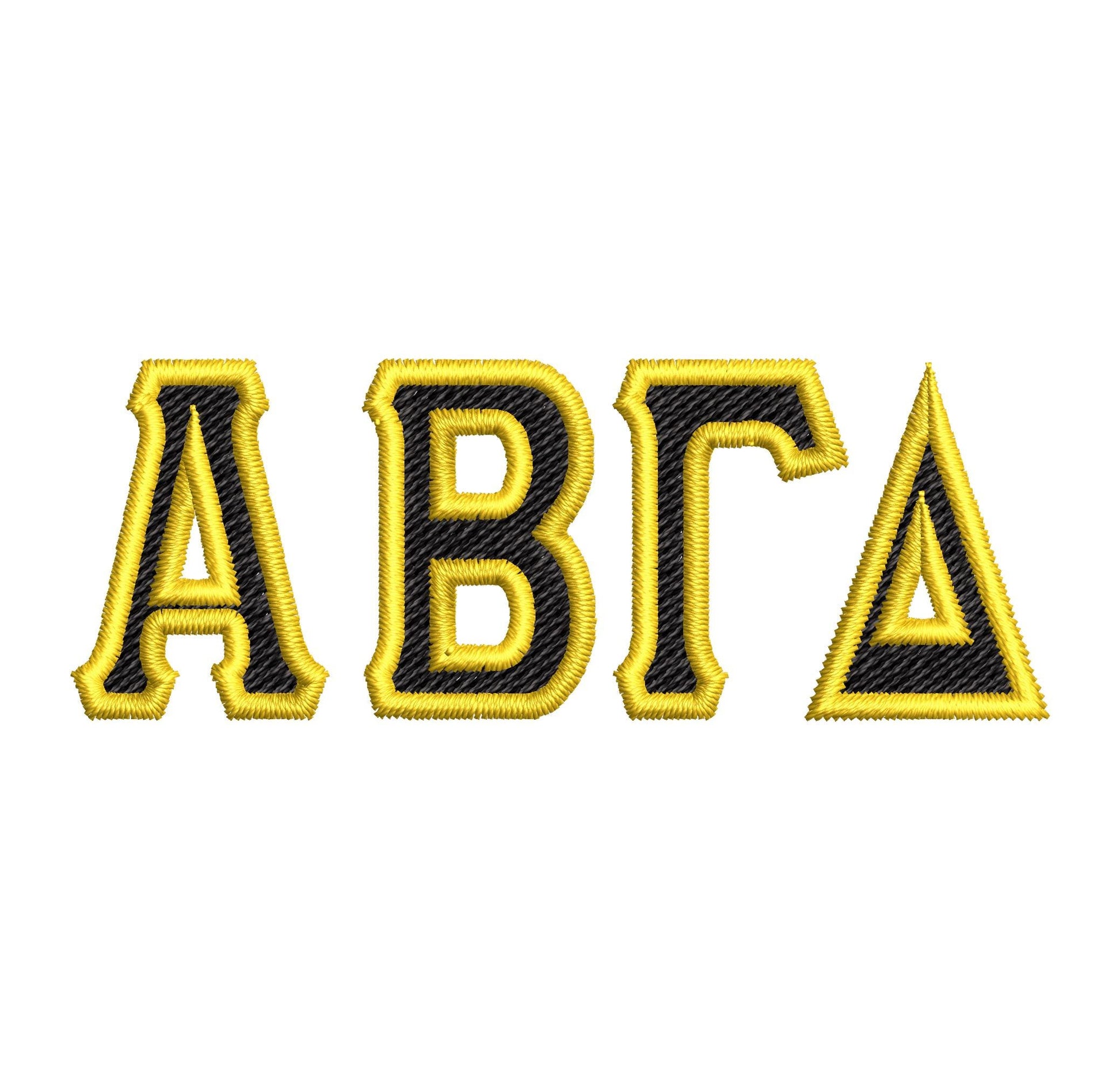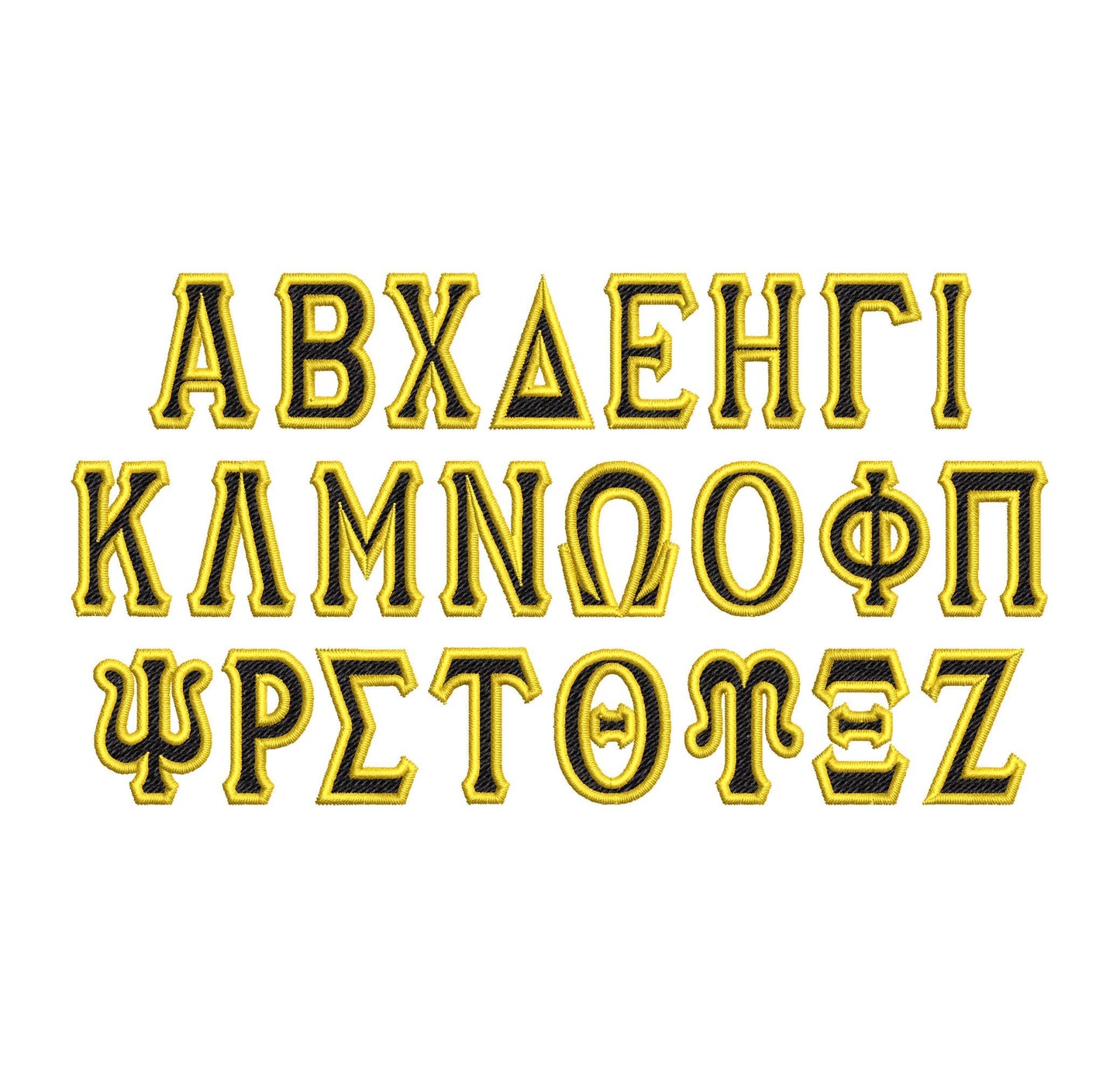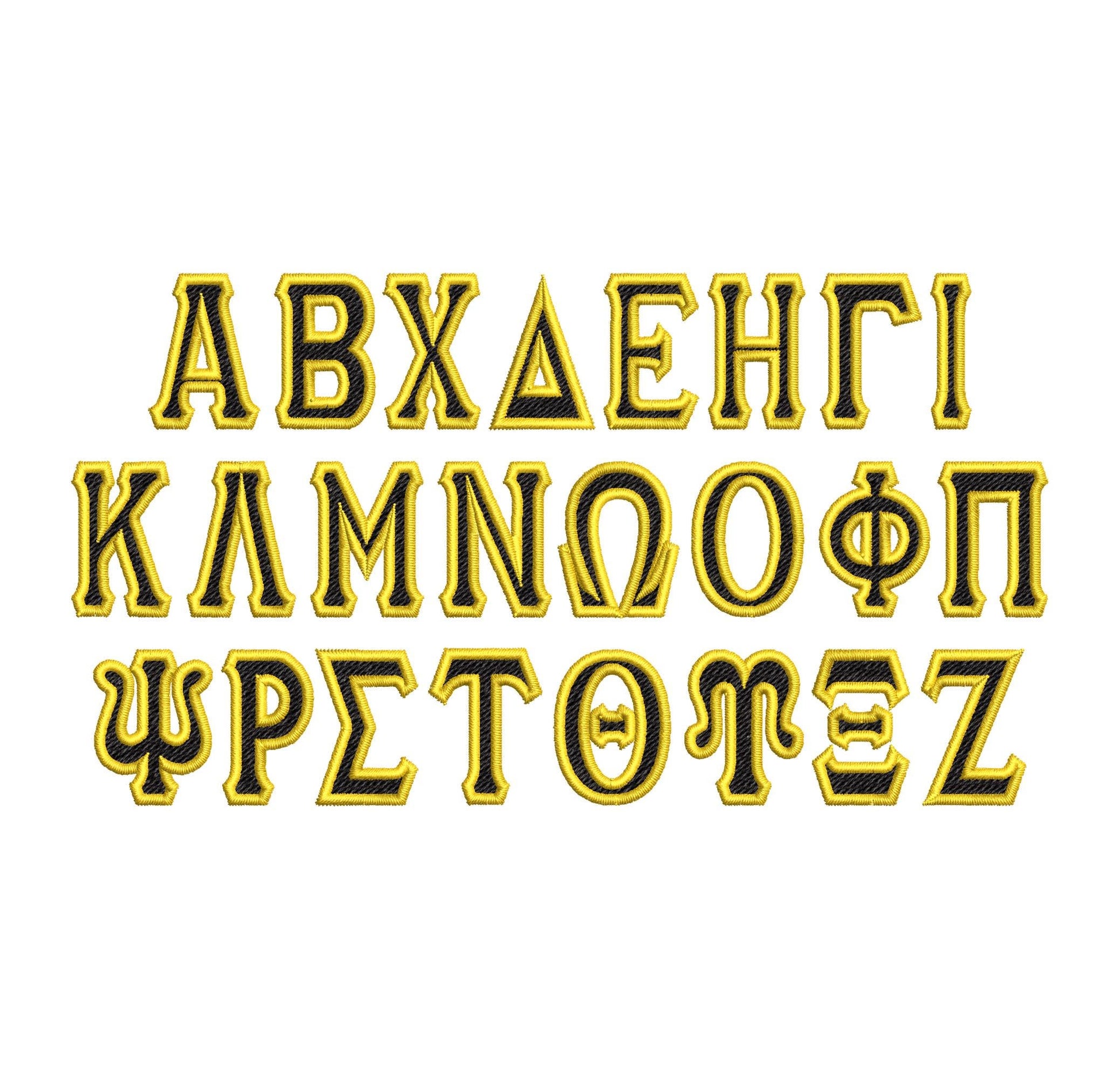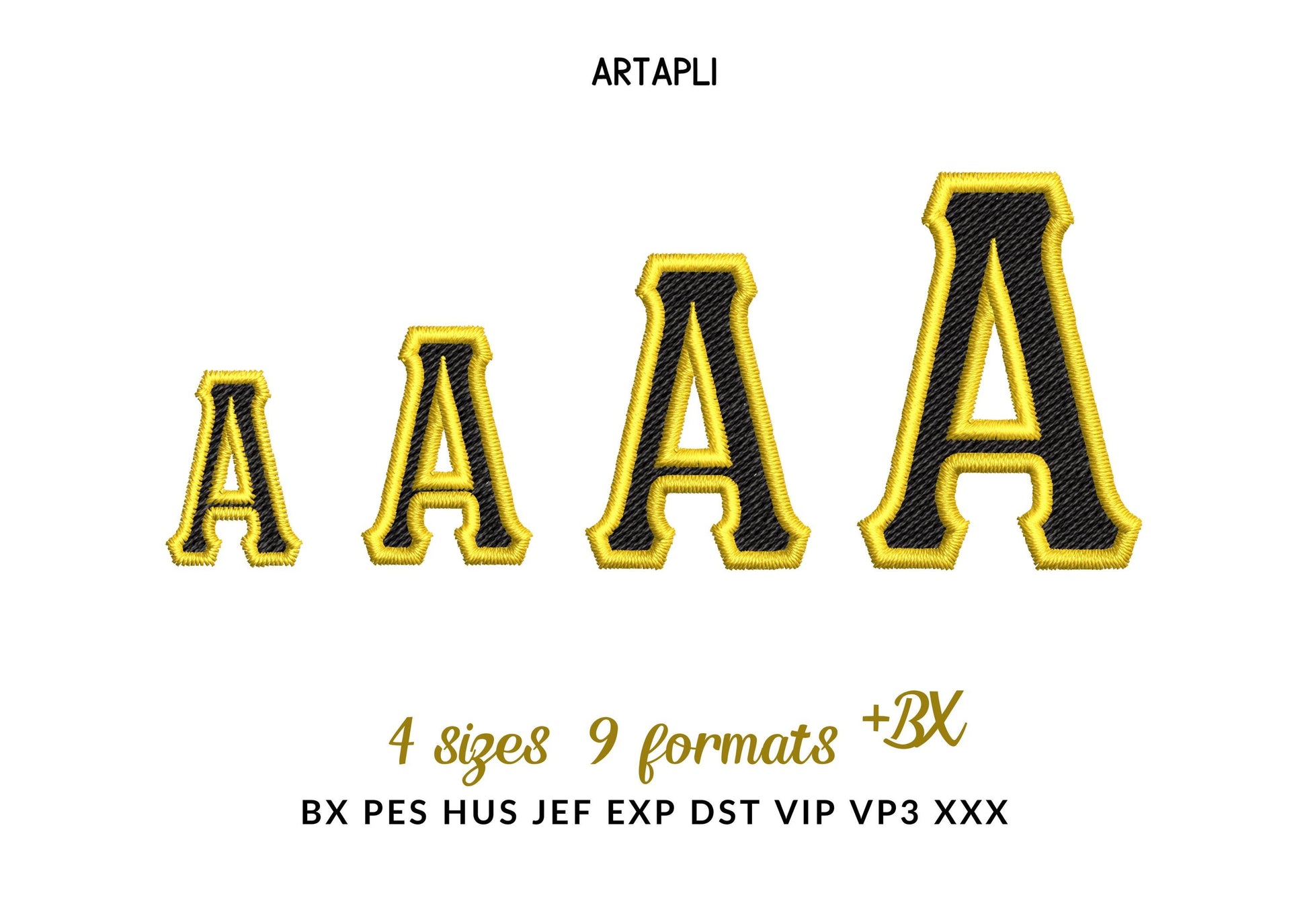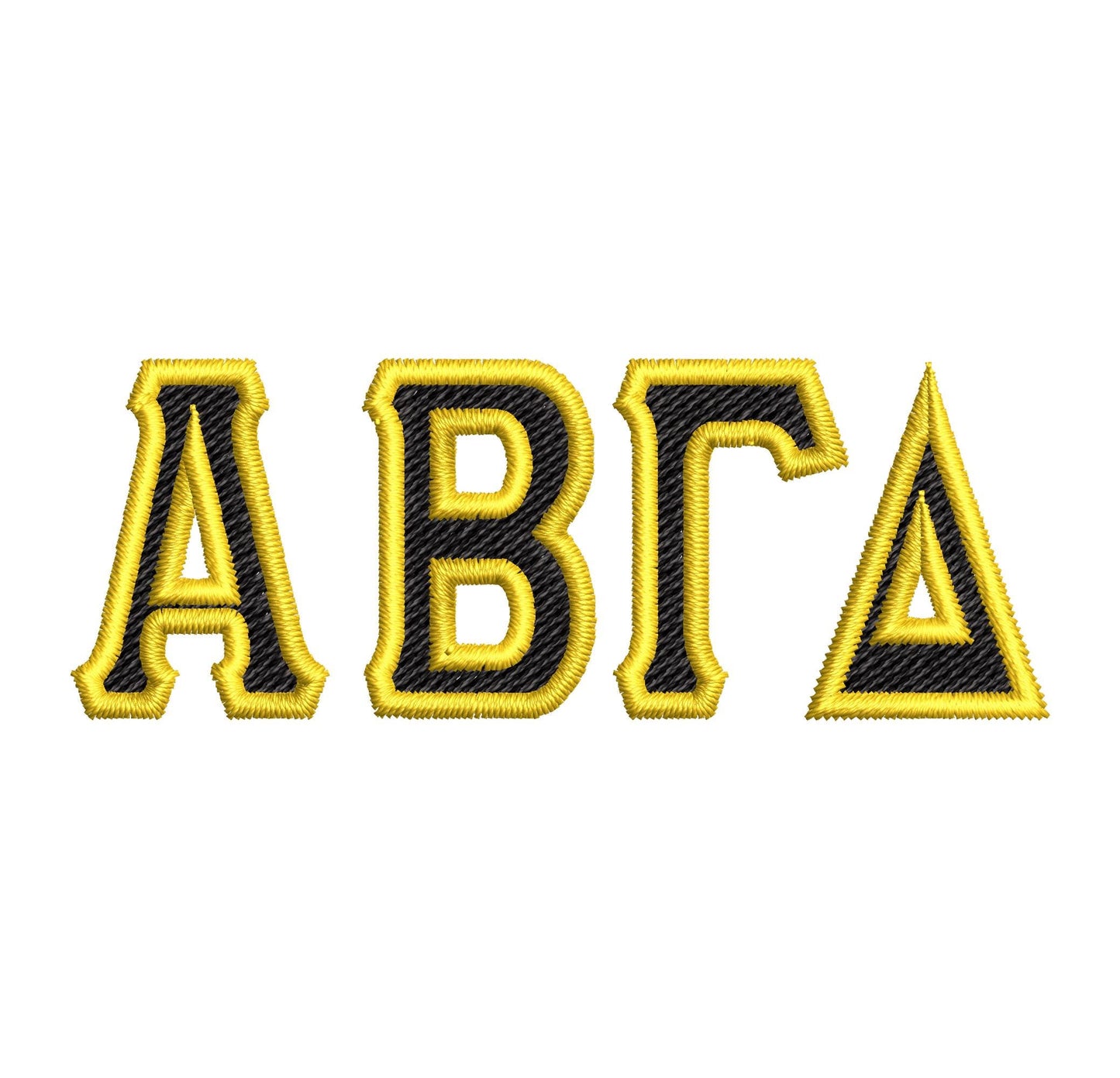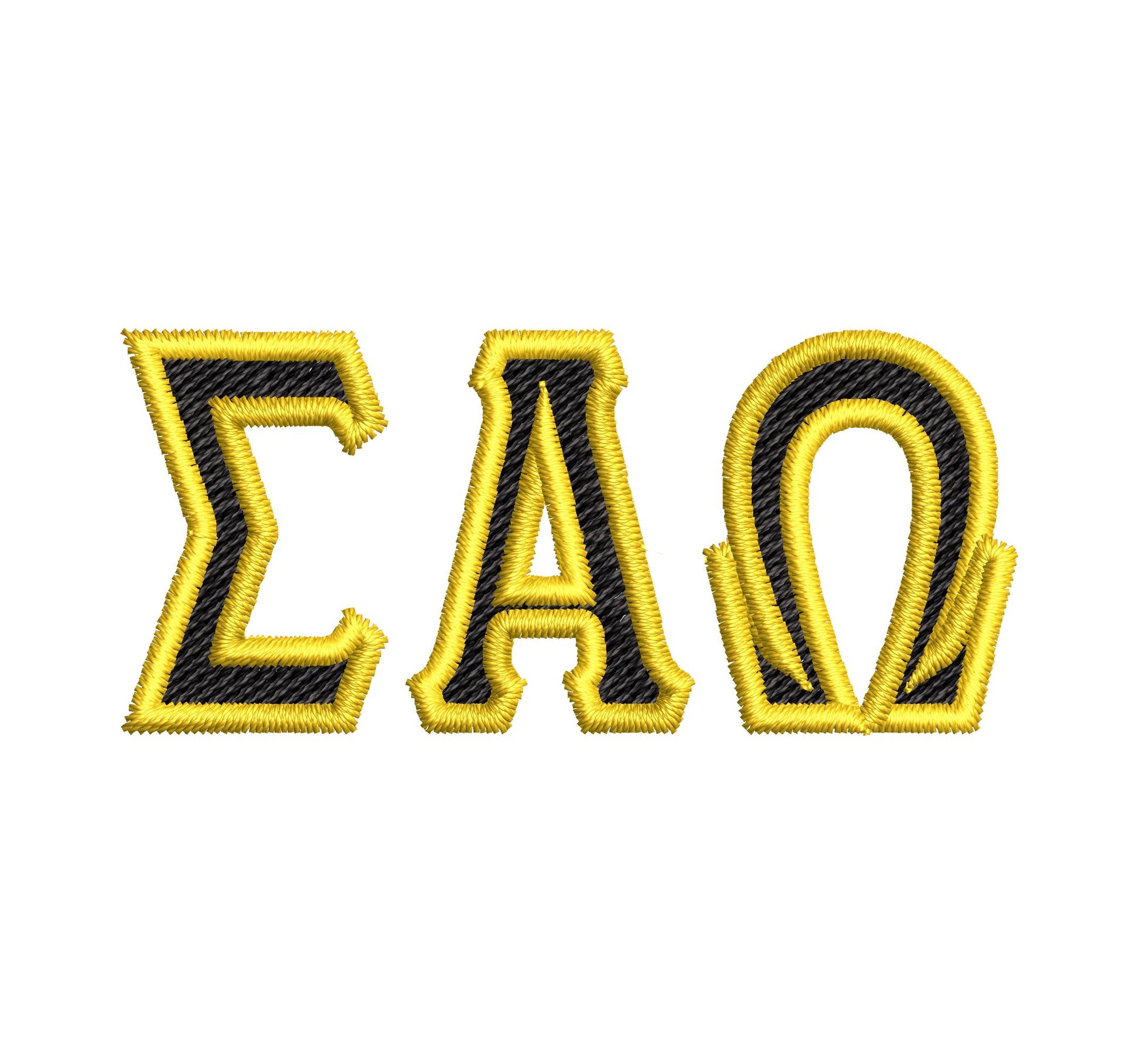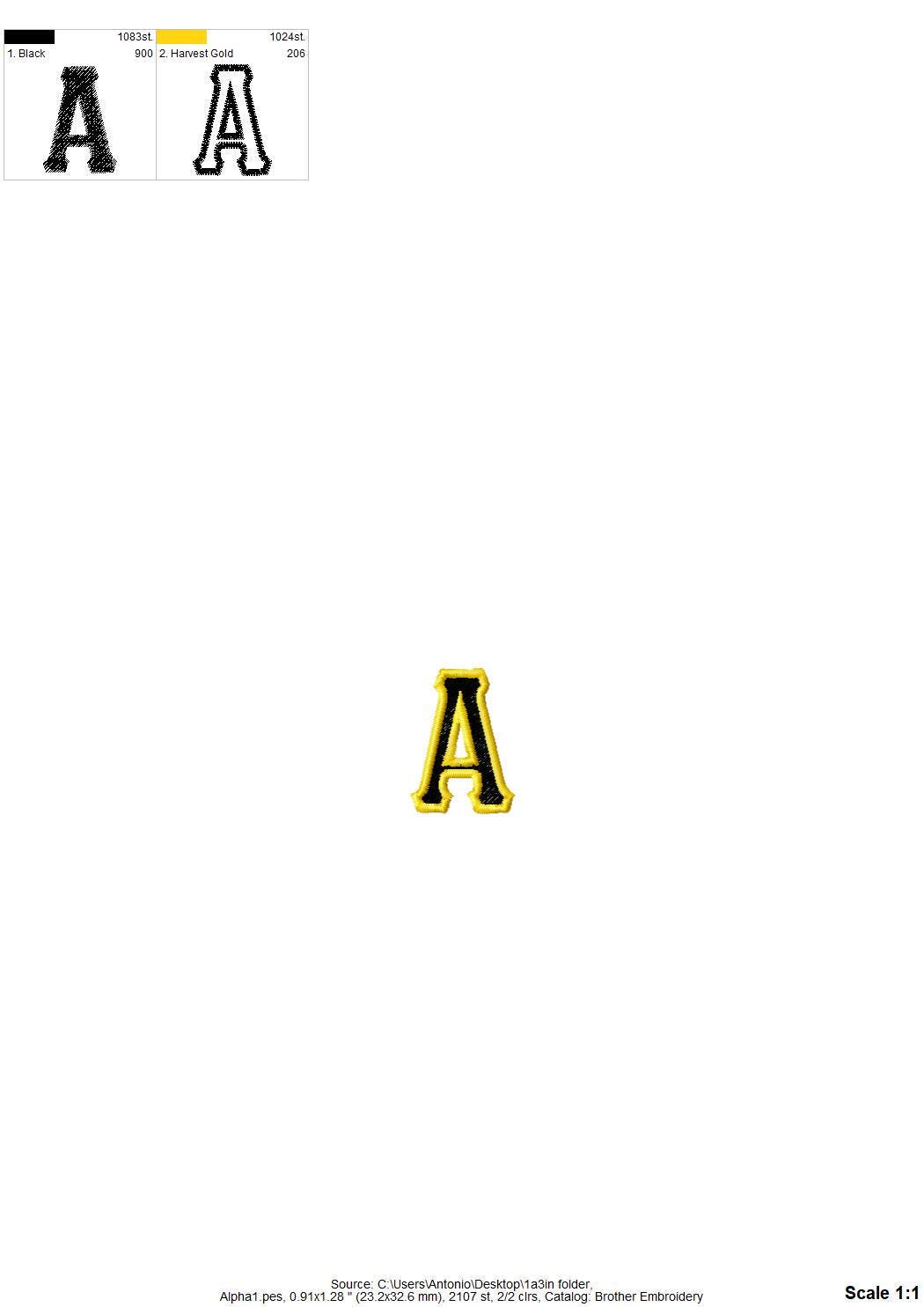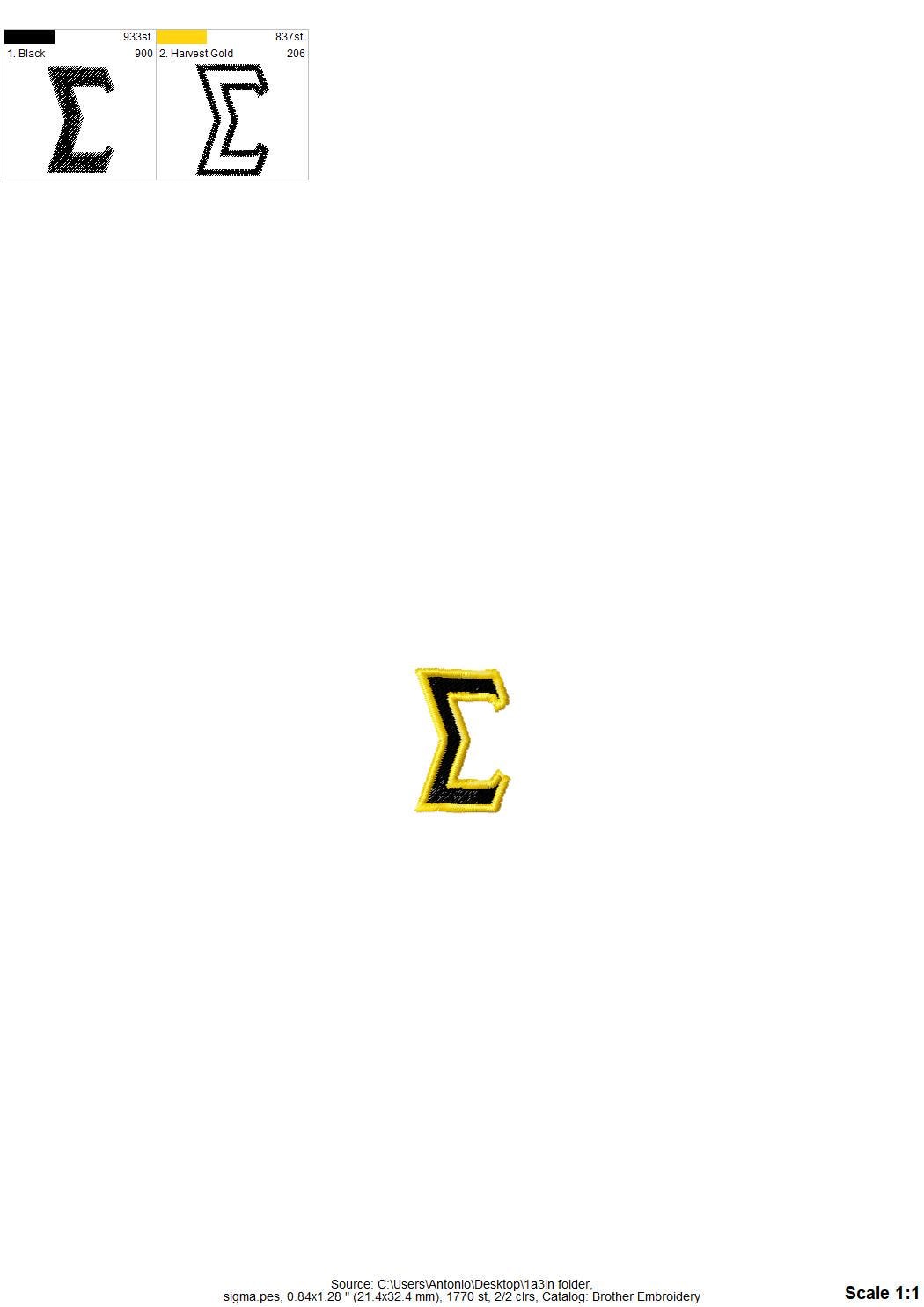
Tall Mini Greek Font
All 24 Greek letters in fill stitch with a contrast outline in a second color, in four heights: 0.8, 1, 1.3 and 1.6 inches.
- 24 Greek letters, fill stitch with contrast outline
- 4 heights, 0.8 to 1.6 in